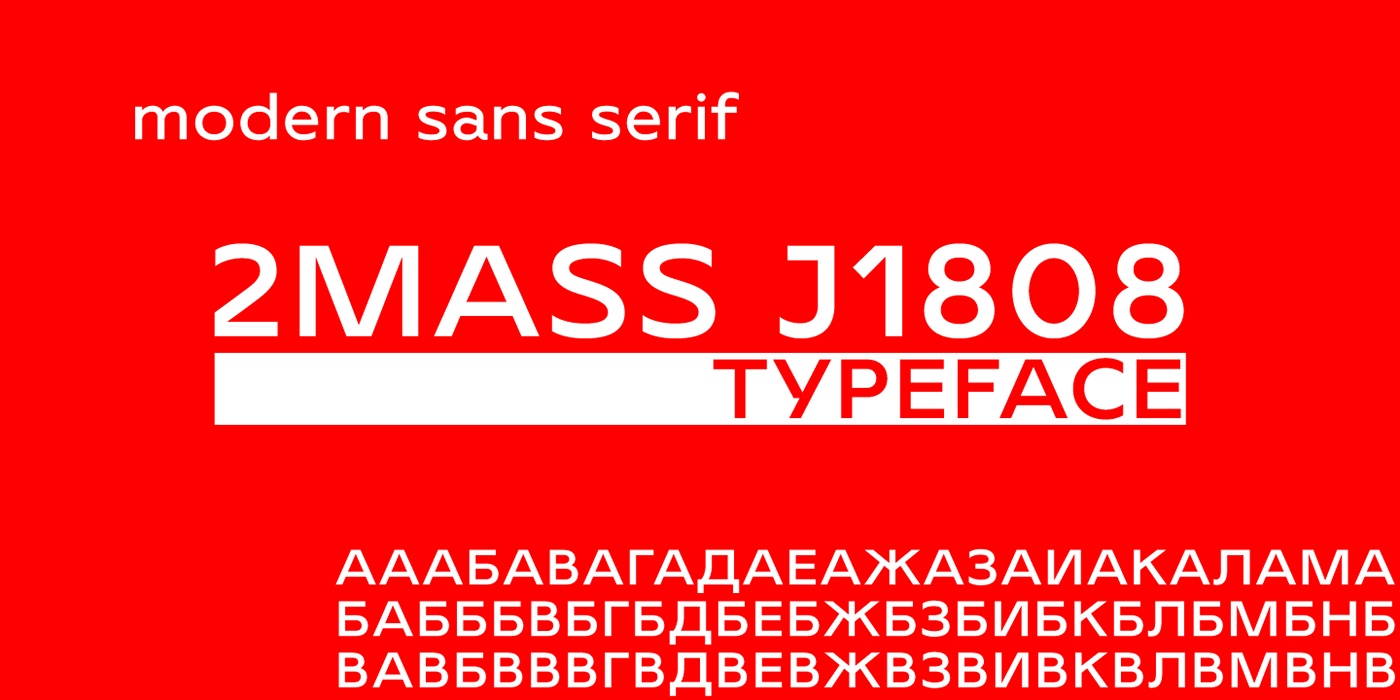
2MASS J1808 Font
2MASS J1808 Font is perfect for astronomical research institutions, space exploration companies, scientific data visualization platforms, observatory communications, stellar cartography services, and cosmic discovery publications. Its stellar character makes it ideal for planetarium presentations, astronomical software interfaces, space science museums, stellar classification systems, deep space research organizations, and any project requiring cosmic precision with astronomical authenticity and stellar discovery appeal.
This font is exciting because it captures the precision and wonder of astronomical discovery while delivering exceptional functionality for organizations exploring the deepest mysteries of our universe through scientific observation and data analysis. The scientifically crafted letterforms reflect the systematic approach and technical precision required in astronomical research, creating typography that resonates with audiences fascinated by stellar phenomena and cosmic exploration.
The 2MASS J1808 Font family typically includes Light, Regular, Medium, and Bold weights with astronomical alternates, scientific ligatures, and stellar elements that enhance its cosmic personality. This comprehensive collection enables space professionals to create authoritative brand systems that maintain scientific credibility while offering flexibility for various astronomical applications requiring both technical precision and contemporary space science positioning.
Whether you're developing identity systems for space research organizations, creating materials for astronomical conferences, or designing interfaces for stellar observation platforms, 2MASS J1808 Font Free Download delivers the scientific authority and cosmic sophistication that connects with audiences passionate about astronomical discovery and space exploration. Its stellar presence ensures memorable brand recognition across digital platforms and print materials, making it perfect for websites, mobile applications, and space campaigns that celebrate stellar discovery, astronomical precision, and the transformative power of exploring our cosmic neighborhood with contemporary scientific standards and authentic astronomical excellence.